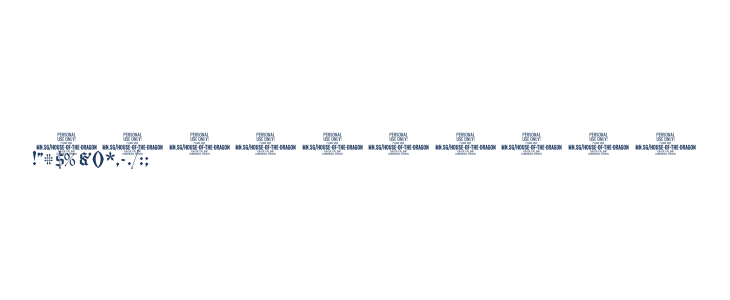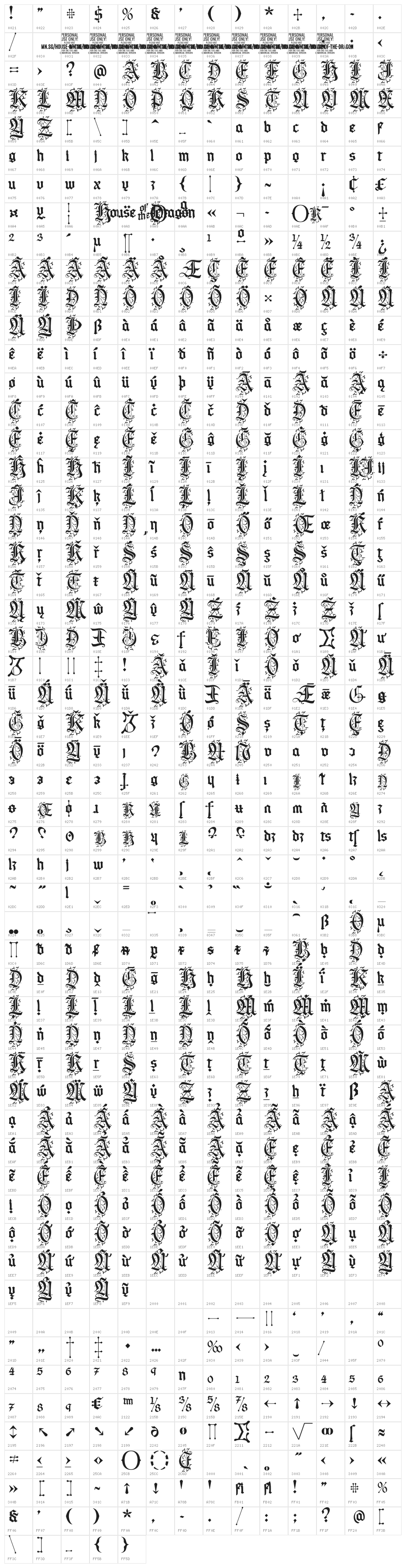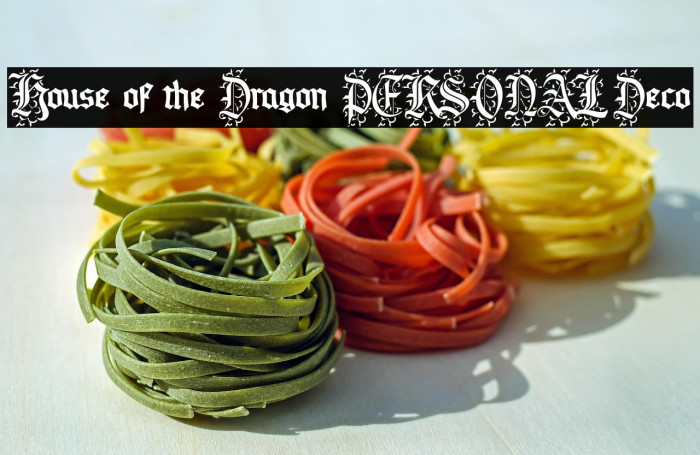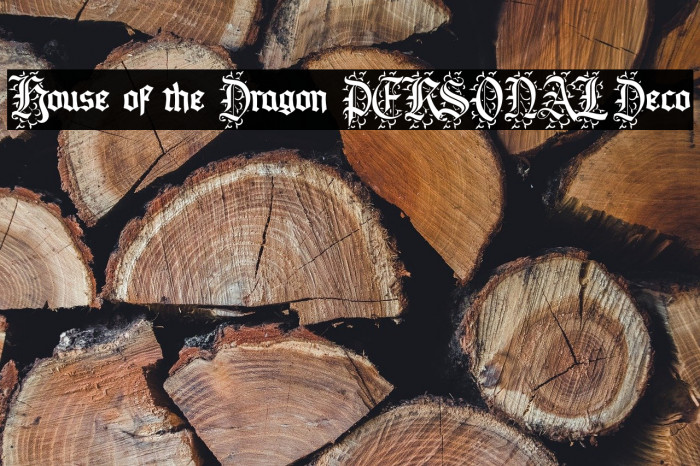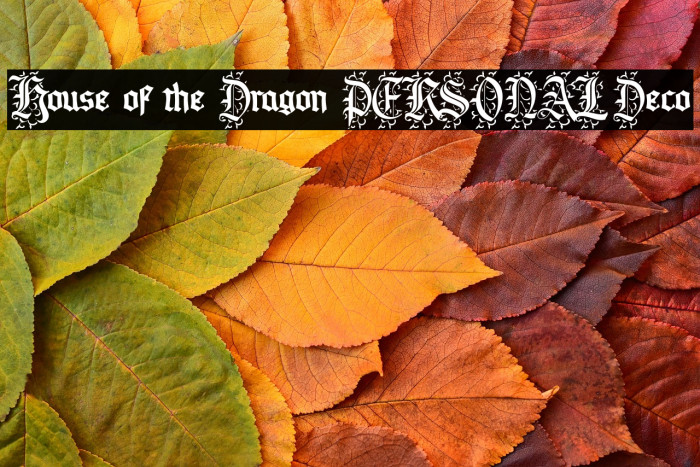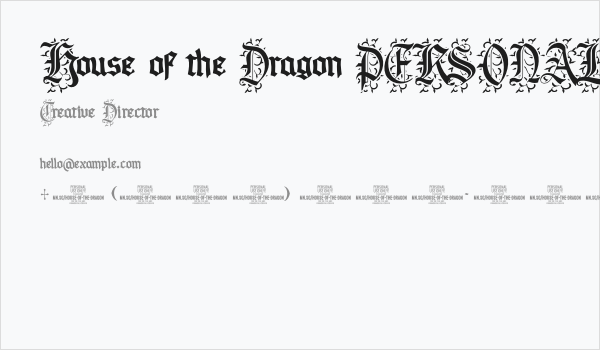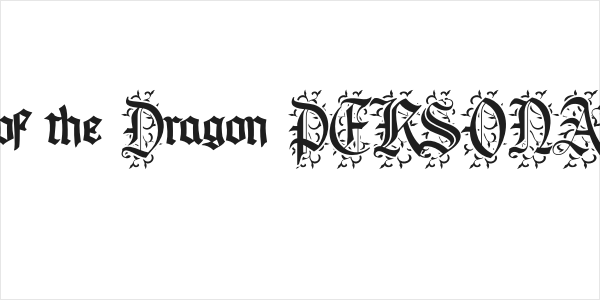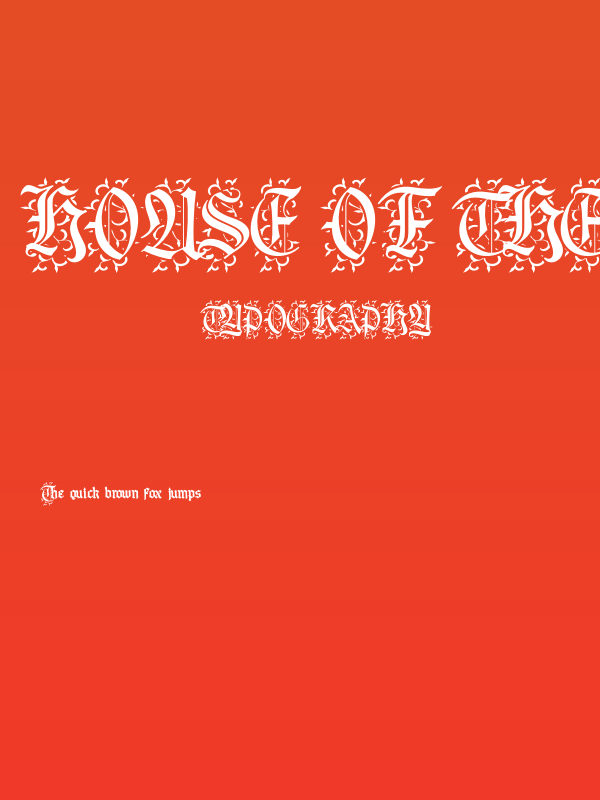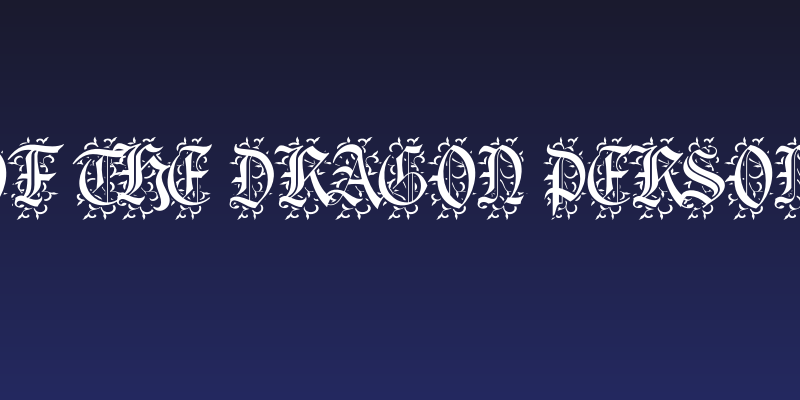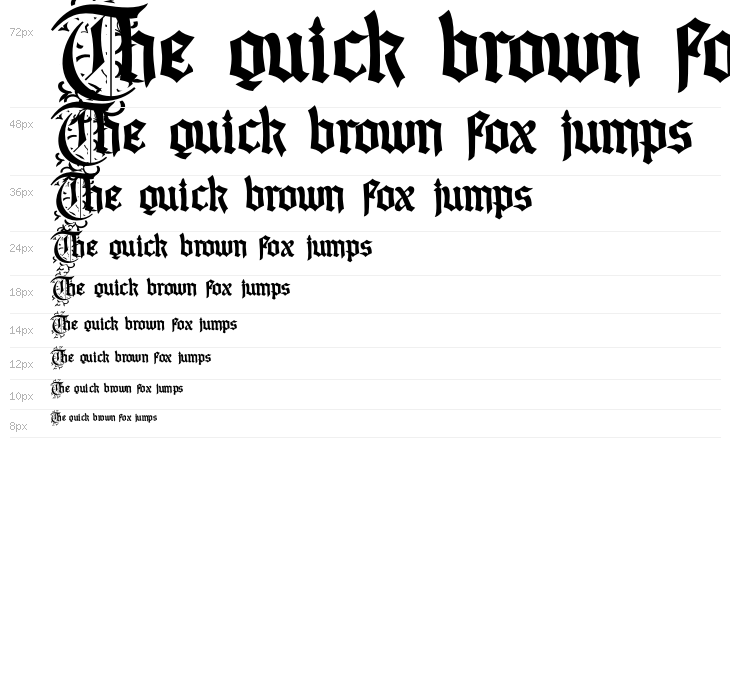
House of the Dragon PERSONAL Deco Font
House of the Dragon PERSONAL Deco Description
This font features a bold and intricate design, reminiscent of medieval script with a modern twist. The uppercase letters are adorned with decorative flourishes, giving them a regal and ornate appearance. The lowercase letters maintain a strong presence with sharp angles and bold strokes, creating a cohesive look. The numerals and special characters are equally detailed, ensuring consistency throughout the font. This style is perfect for projects that require a touch of historical elegance combined with contemporary flair.
| Proposed Projects | Ideal for fantasy-themed designs, book covers, posters, and branding that requires a historical or gothic touch. |